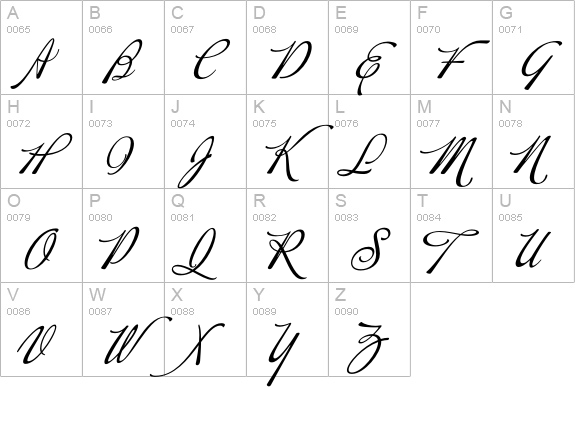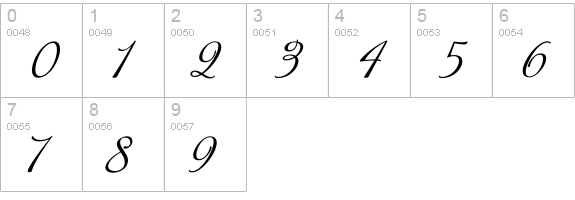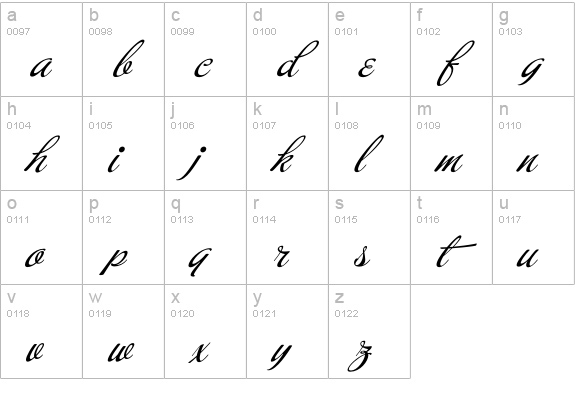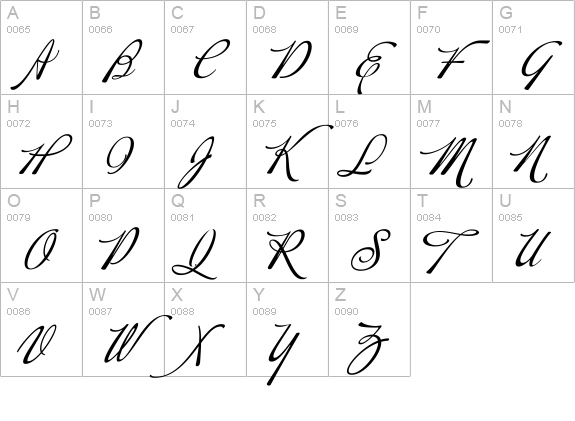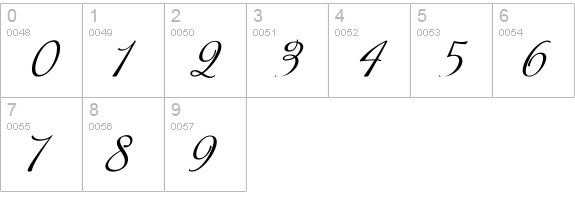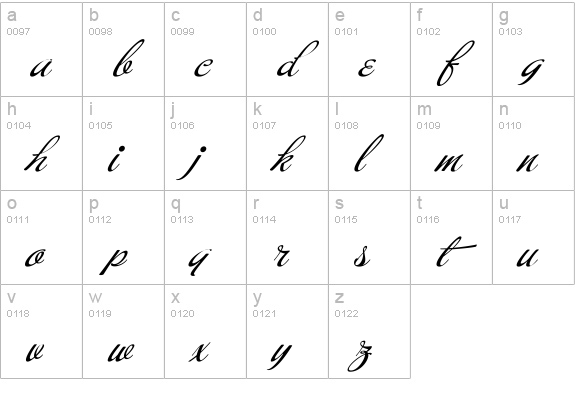
Buffet Script is a charming and elegant font that exudes sophistication and style. Its flowing and graceful curves make it perfect for adding a touch of class to any design project. This versatile script font is ideal for wedding invitations, branding, packaging, and much more. The best part is that Buffet Script is completely free to download at FontsMarket.com. This means you can easily access this stunning font and elevate your designs without any cost. Don't miss out on the opportunity to enhance your projects with the beauty of Buffet Script. Download it now and let your creativity shine!